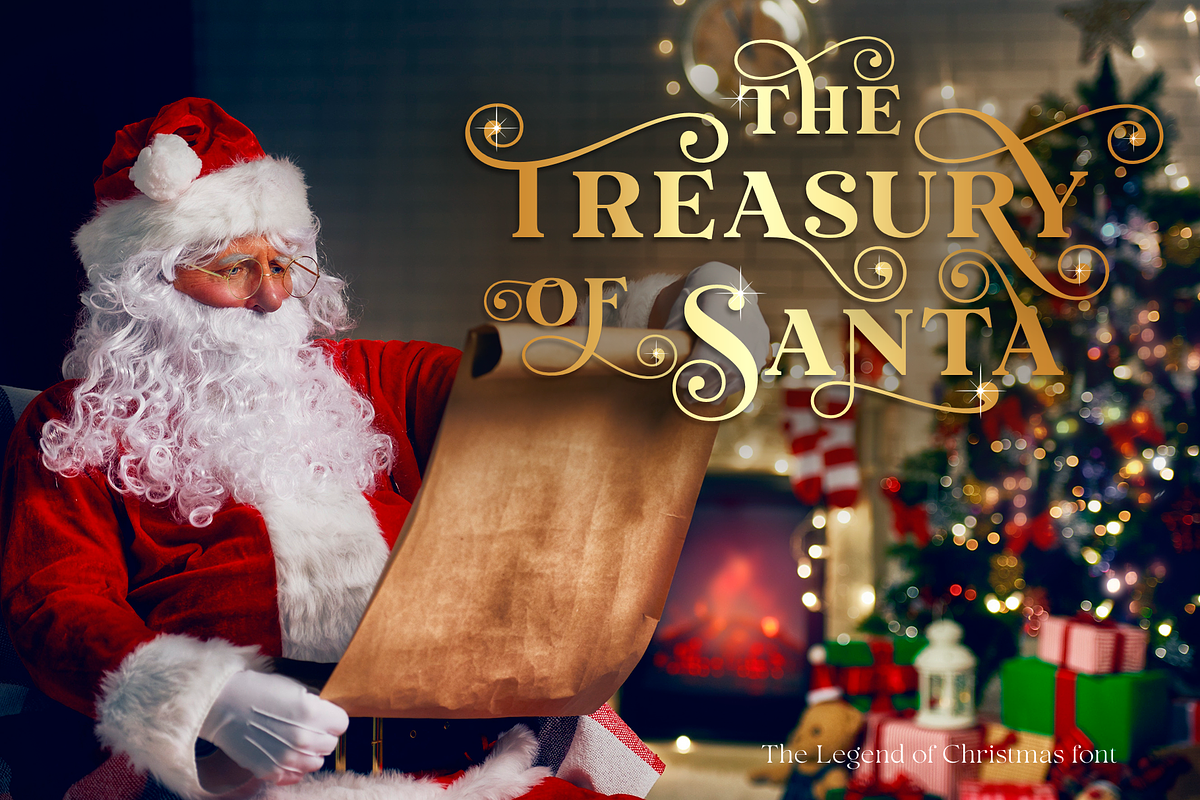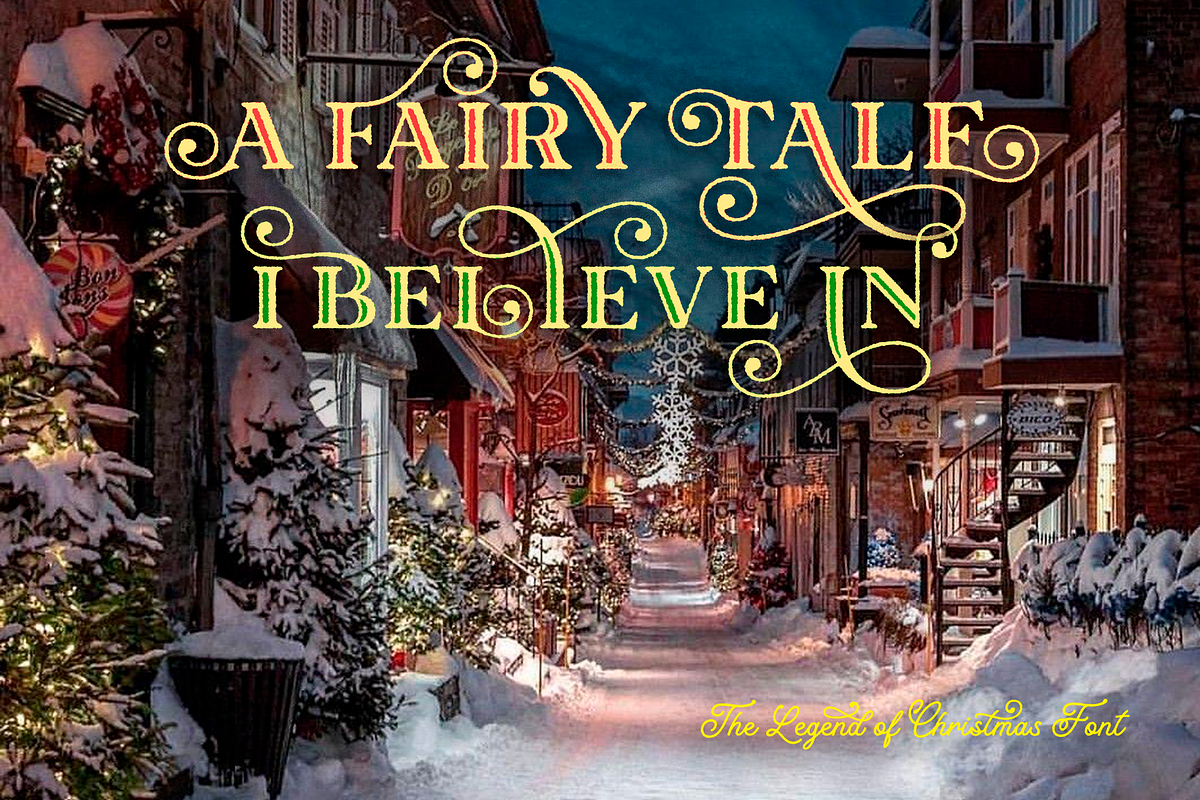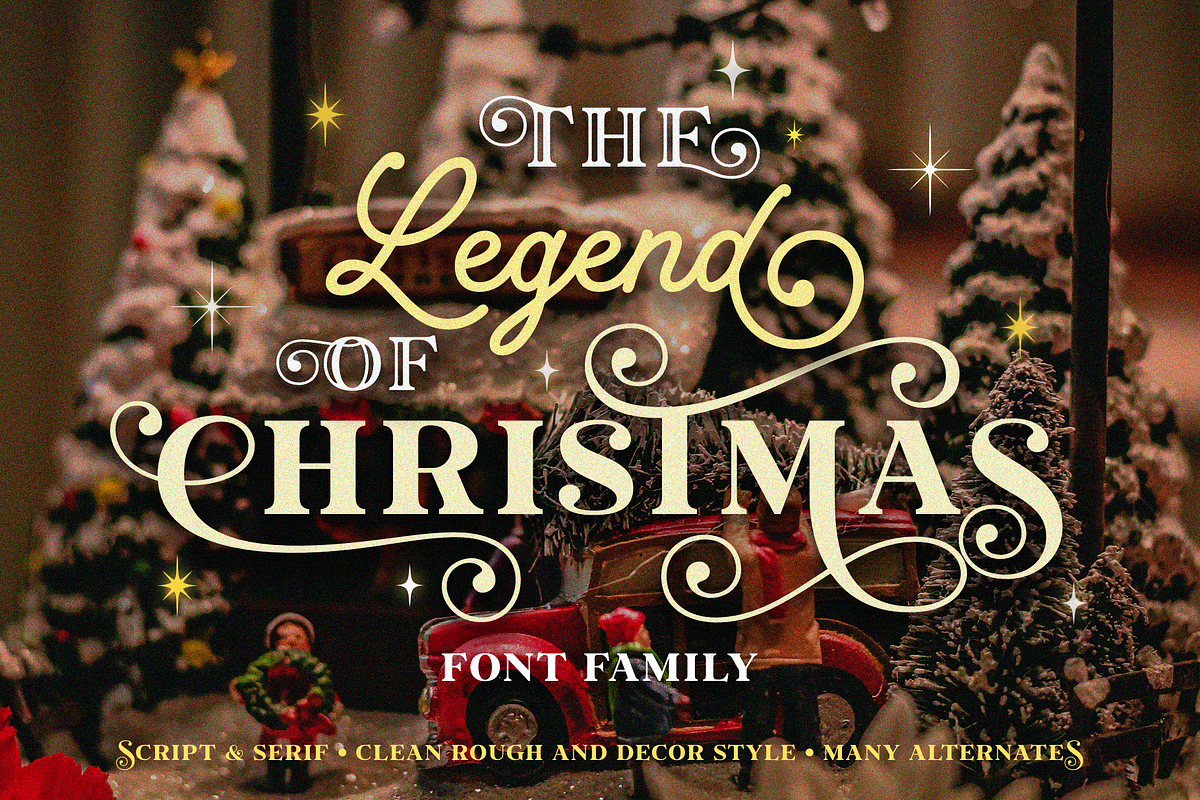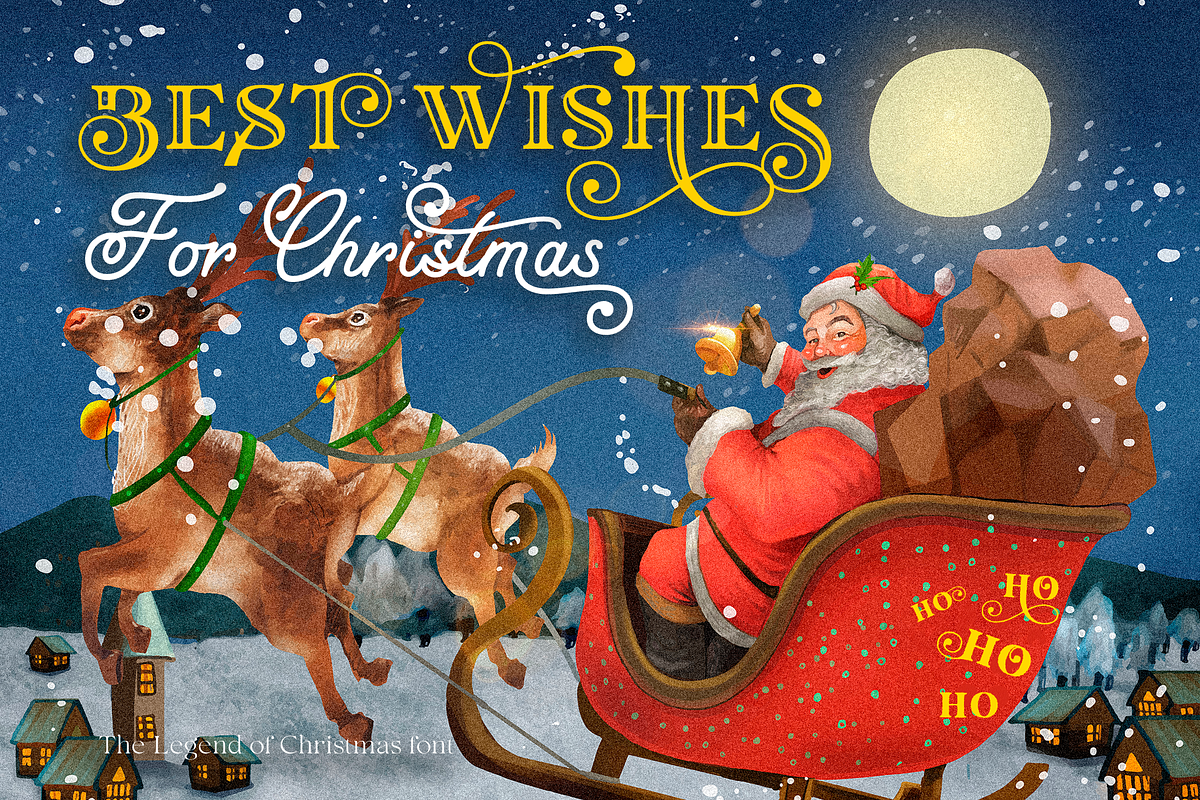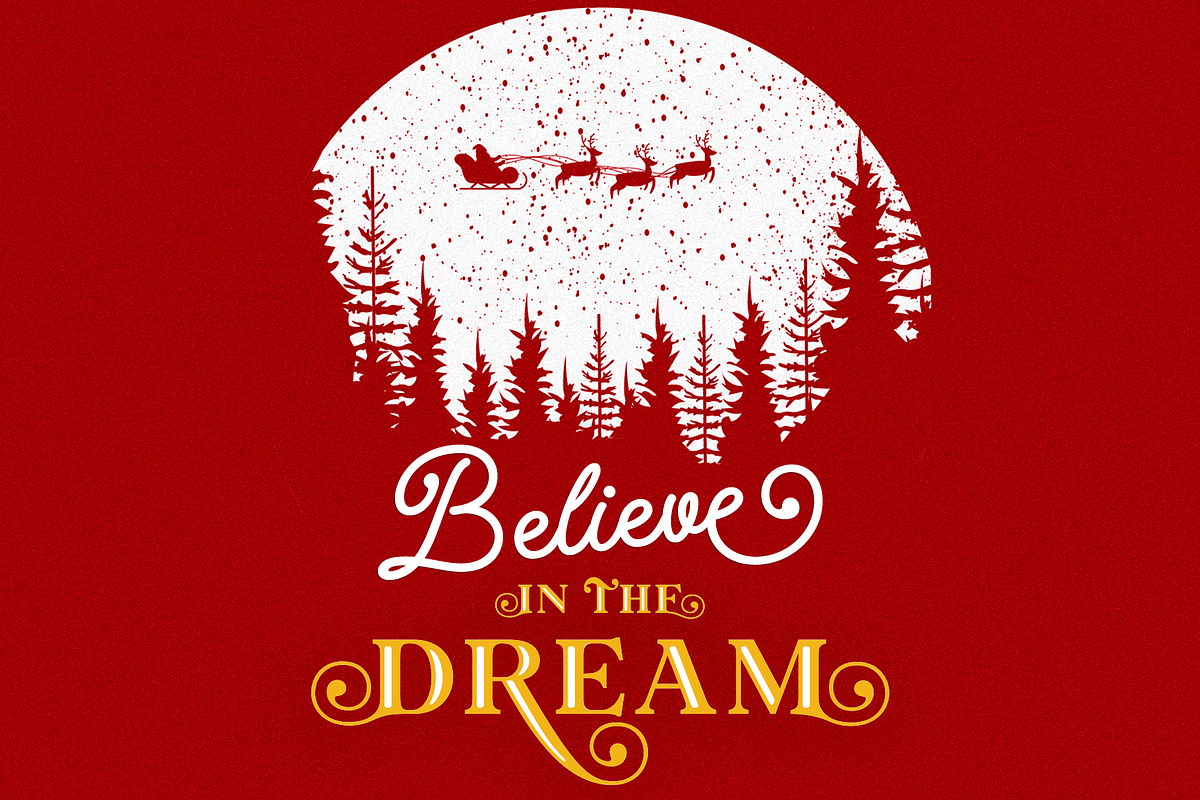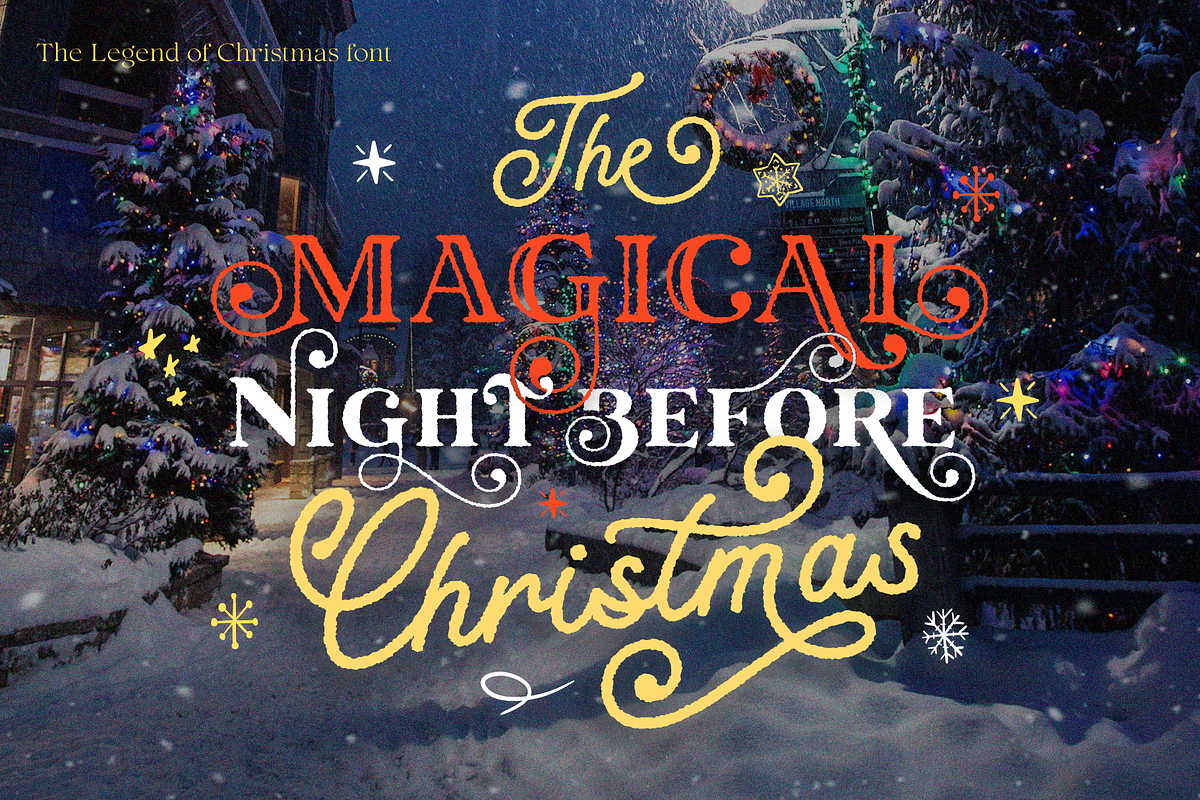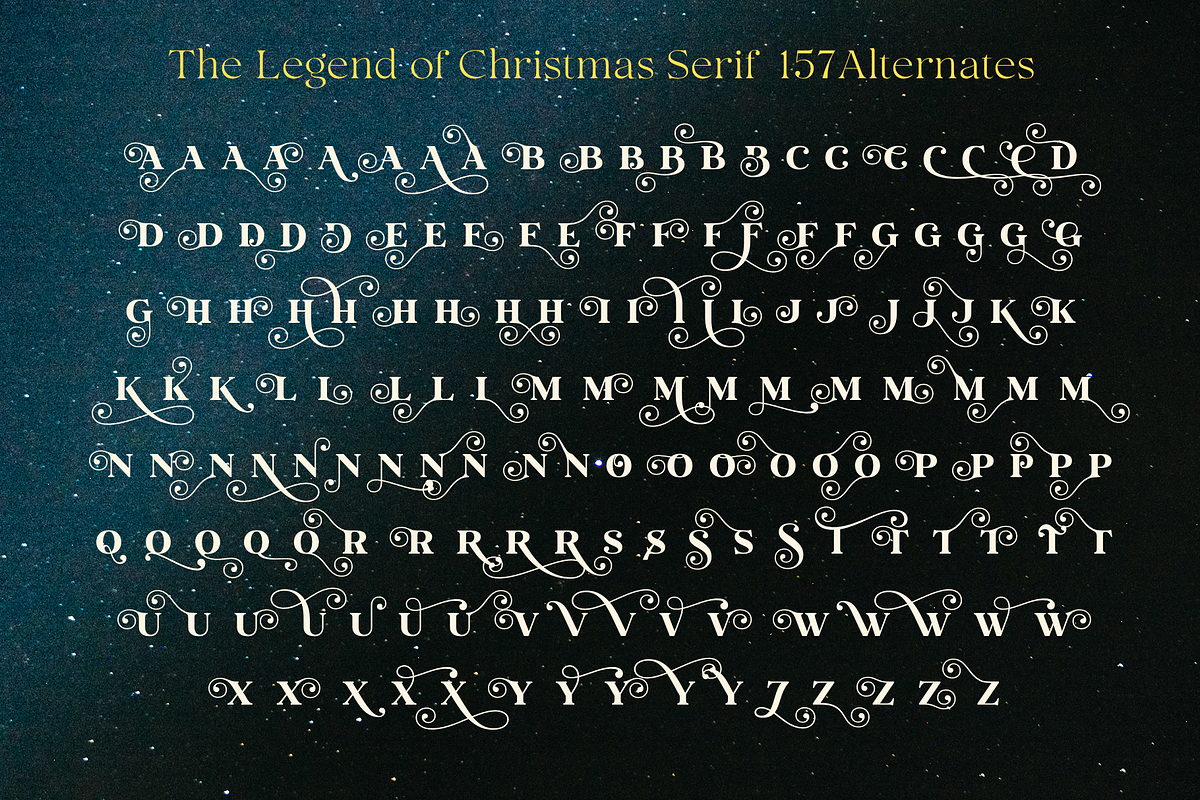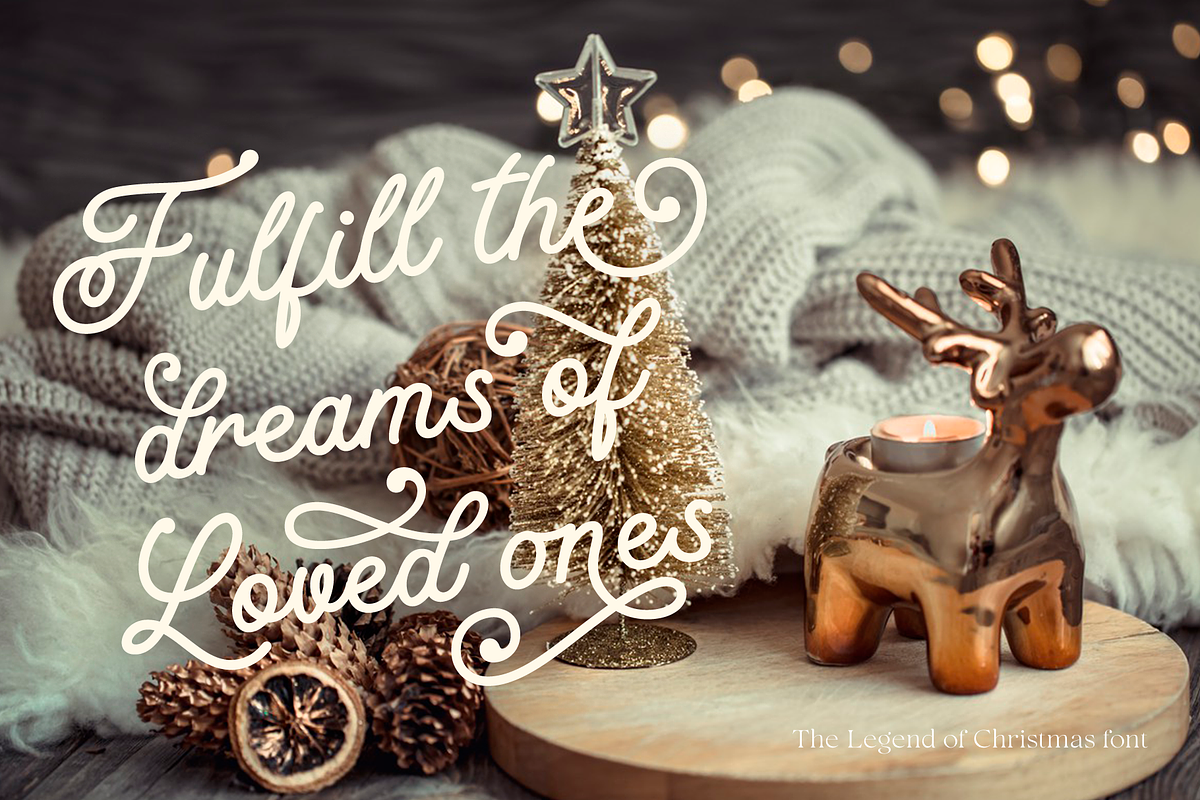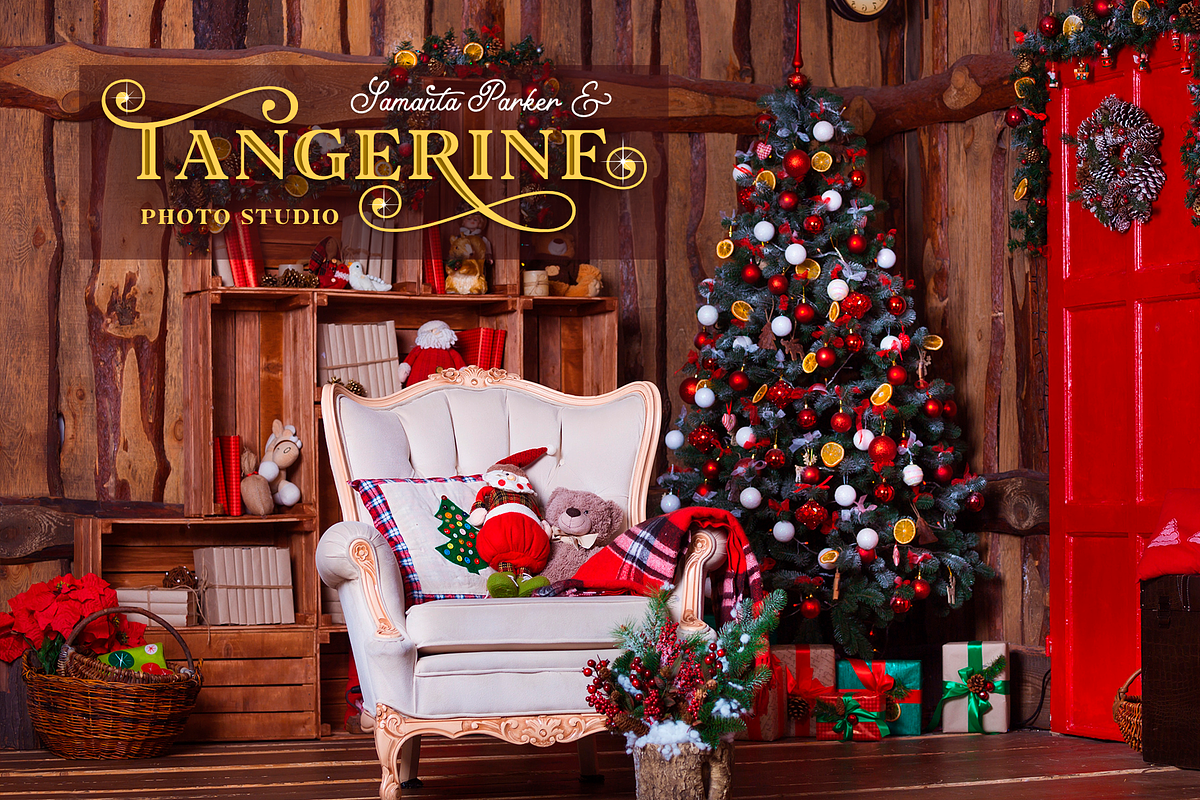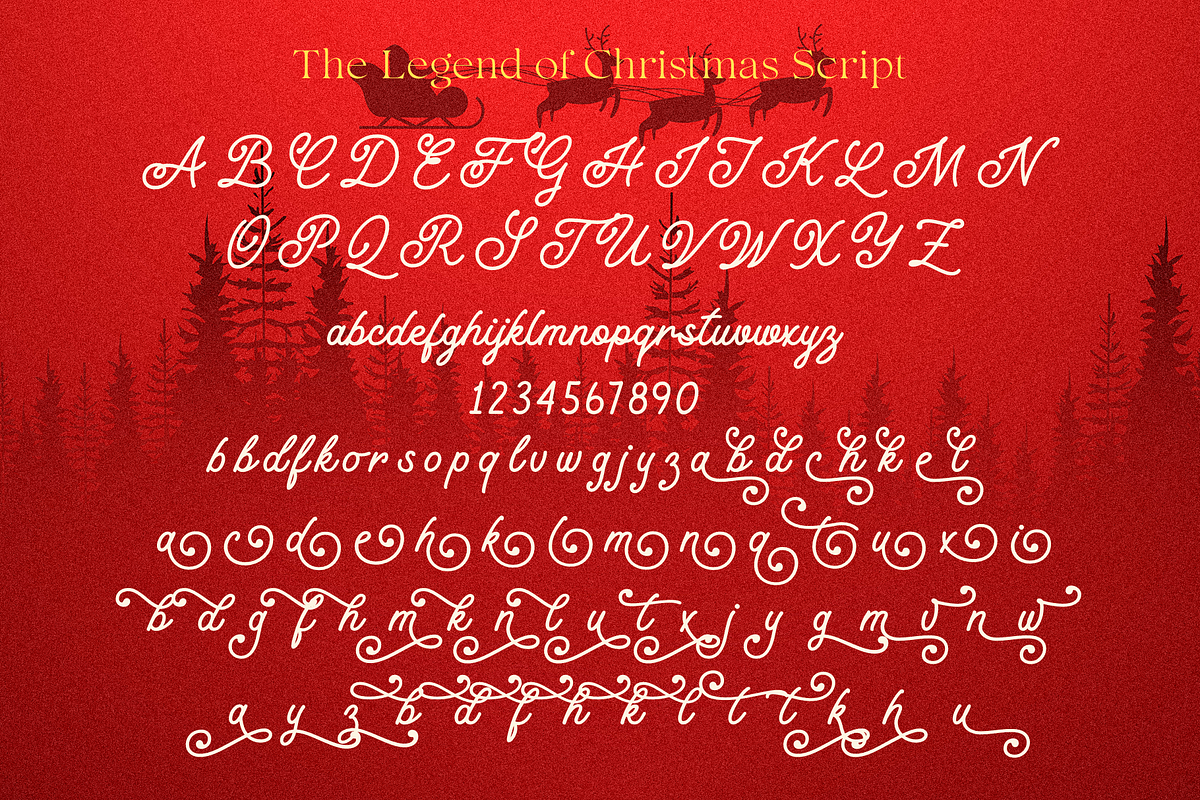
Legend of Christmas
This is an amazing font family that includes six fonts: serif, serif rough, decor, decor rough, script, script rough style.
These fonts are perfectly combined with each other and are suitable for both modern and vintage design. Serf has only capital letters and includes a large selection of alternates, play with them and achieve an amazing design. Script will also look great in vintage and modern design and can be used as an additional or main one, it includes a large selection of alternates for lowercase letters.
Following international symbols support: ÀÁÂÃÄÅĄÇĆÈÉÊËĘÌÍÎÏÐÑŃŁÒÓÔÕÖØÙÚÛÜŚŠŸÝŹŻŽßàáâãäåçèéêëìíîïðñòóôõöøùúûüýÿąćęłńśšźżž
Full Capital alphabet A-Z for Serif
Full alphabet with Uppercase and Lowercase for Script
Numbers, fractions for Serif and Script
Punctuation and symbols for Serif and Script
Alternates for Serif
Alternates for Lowercase for Script
Multilingual support for Serif and Script